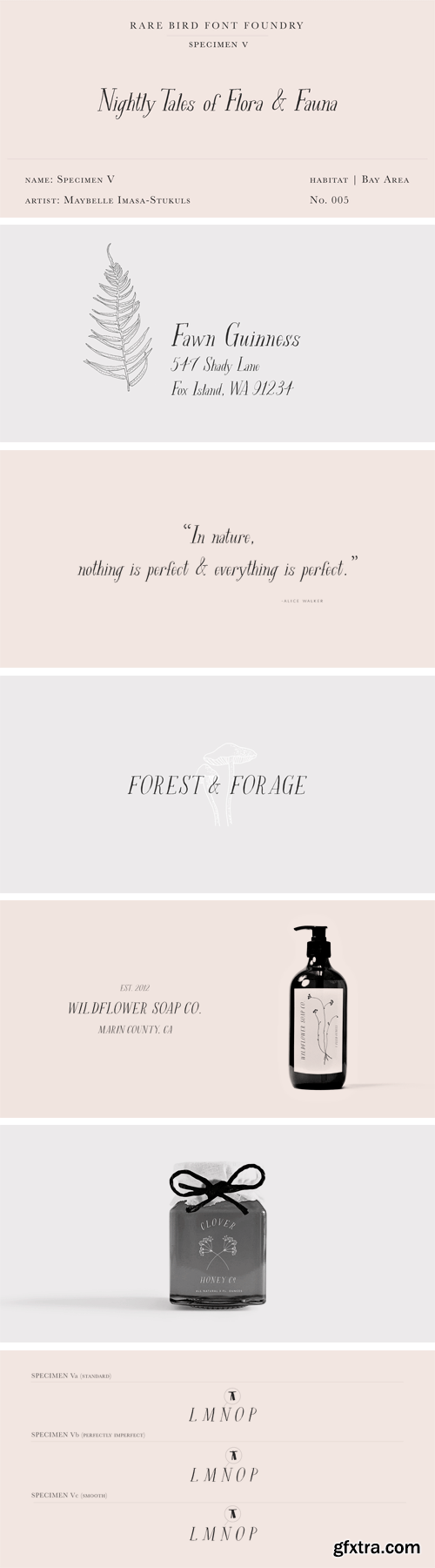
From the incredible well of creativity that is Maybelle Imasa-Stukuls we bring you Specimen V. A quirky serif family paired with natural history inspired illustrations. Specimen V is a hand-drawn font, inspired by classic serifs. Created with all the quirks and charm you'd expect from Maybelle Imasa-Stukuls. The sky’s the limit with this nimble font.